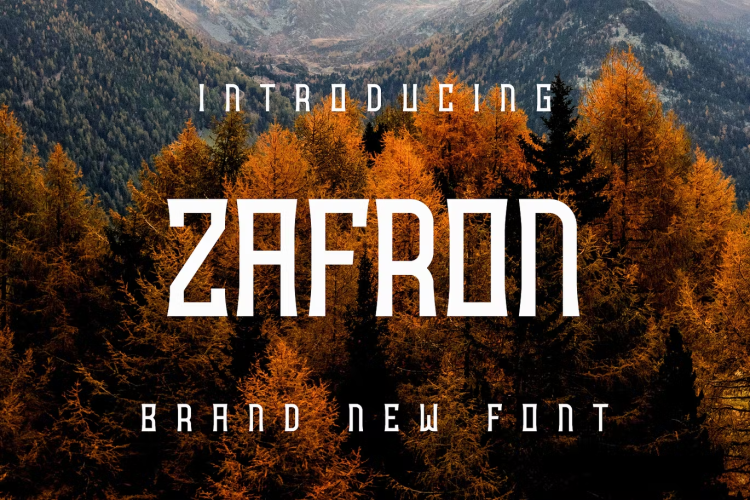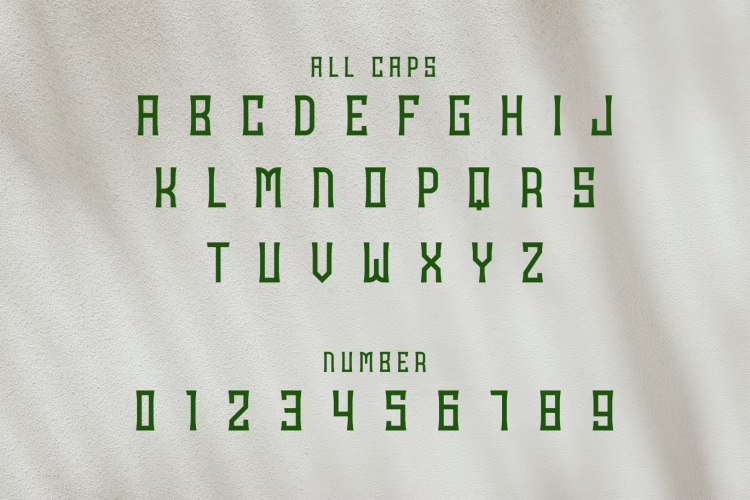
Zafron Font
Zafron Font Perfectly suited on print/screen. it’s perfect for Branding, name card, poster, logo, magazine, cover, banner, tshirt and headers, or even large-scale artwork.
Where Zafron Font works best
Zafron Font stays legible at small sizes, which makes it a strong choice for navigation, buttons and dashboards in web design and app interfaces.
Clean sans serifs like Zafron Font are the default language of SaaS, fintech and product branding.
What is Zafron Font good for?
Zafron Font is a Sans Serif Fonts typeface tagged Branding, Editorial, Poster, Professional. It works well for headlines, logos, posters, social media graphics and branding projects that need a distinctive sans serif fonts look.